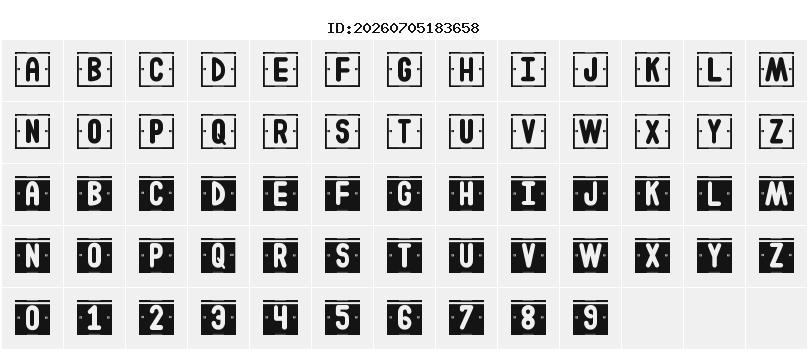
• Font Name: DoUbLe CoLoR St
• Full Font Name: DoUbLe CoLoR St
• Designer: This font is an original work of southype dot com
DoUbLe CoLoR St.ttf is a modern, elegant sans-serif font designed for ultimate readability and visual harmony. Perfect for branding, headlines, web design, and print materials.